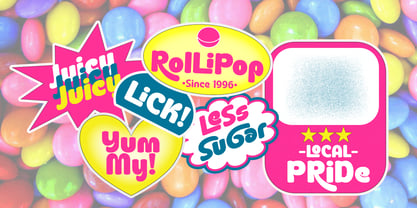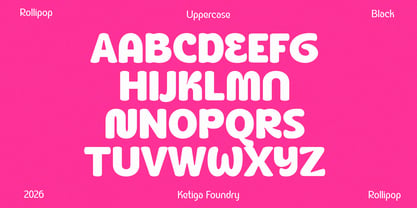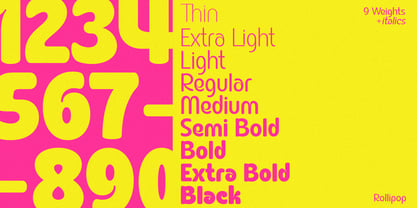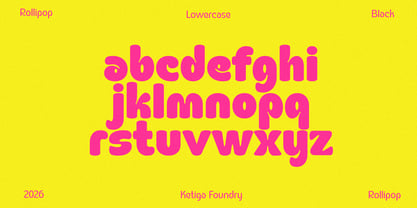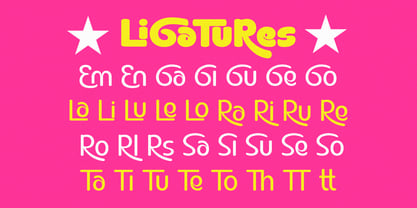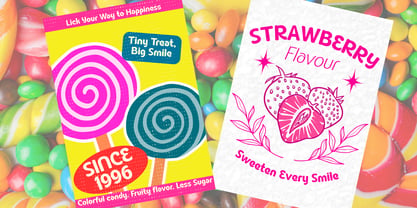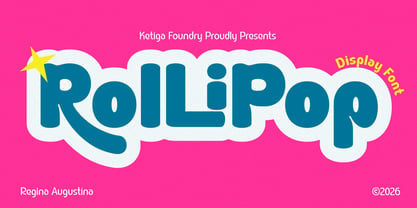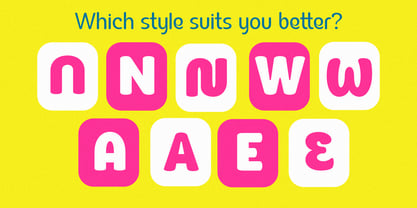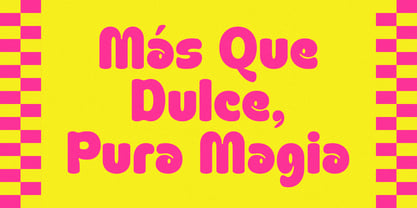
Rollipop
by Ketiga Foundry
The Rollipop Font Family was designed by Reginaa Augustina and published by Ketiga Foundry. Rollipop contains 18 styles and family package options. More about this family
Meet Rollipop, a whimsical display typeface with a personality of its own.
Soft, rounded, and delightfully unexpected, Rollipop brings a playful character to everything it touches. Its distinctive letterforms balance quirky details with a clean, contemporary feel—making it expressive without becoming difficult to use.
With 9 weights from Thin to Black and matching italics, the family offers a surprisingly wide range of voices. Go delicate and elegant with the lighter weights, confident and friendly in the middle, or turn up the personality with the boldest styles.
Perfect for branding, packaging, posters, editorial design, fashion, beauty, social media, headlines, and playful campaigns, Rollipop is made for projects that want to be noticed.
One family. Nine weights. Endless personalities.